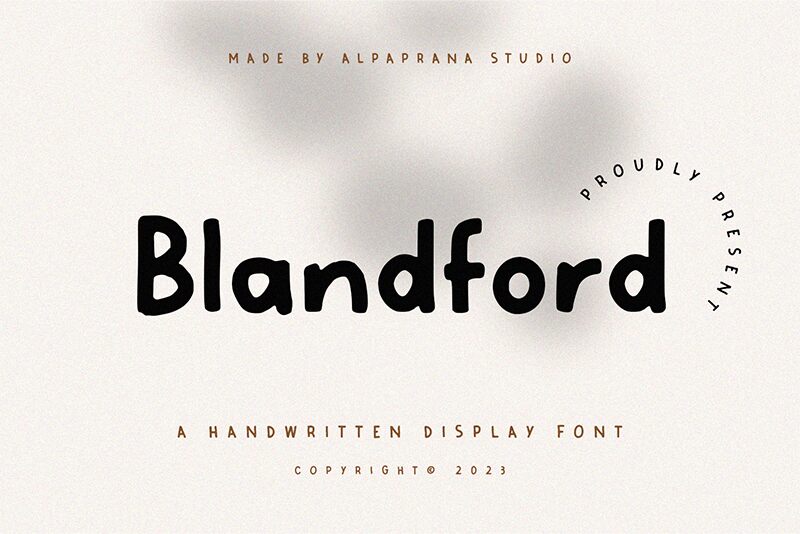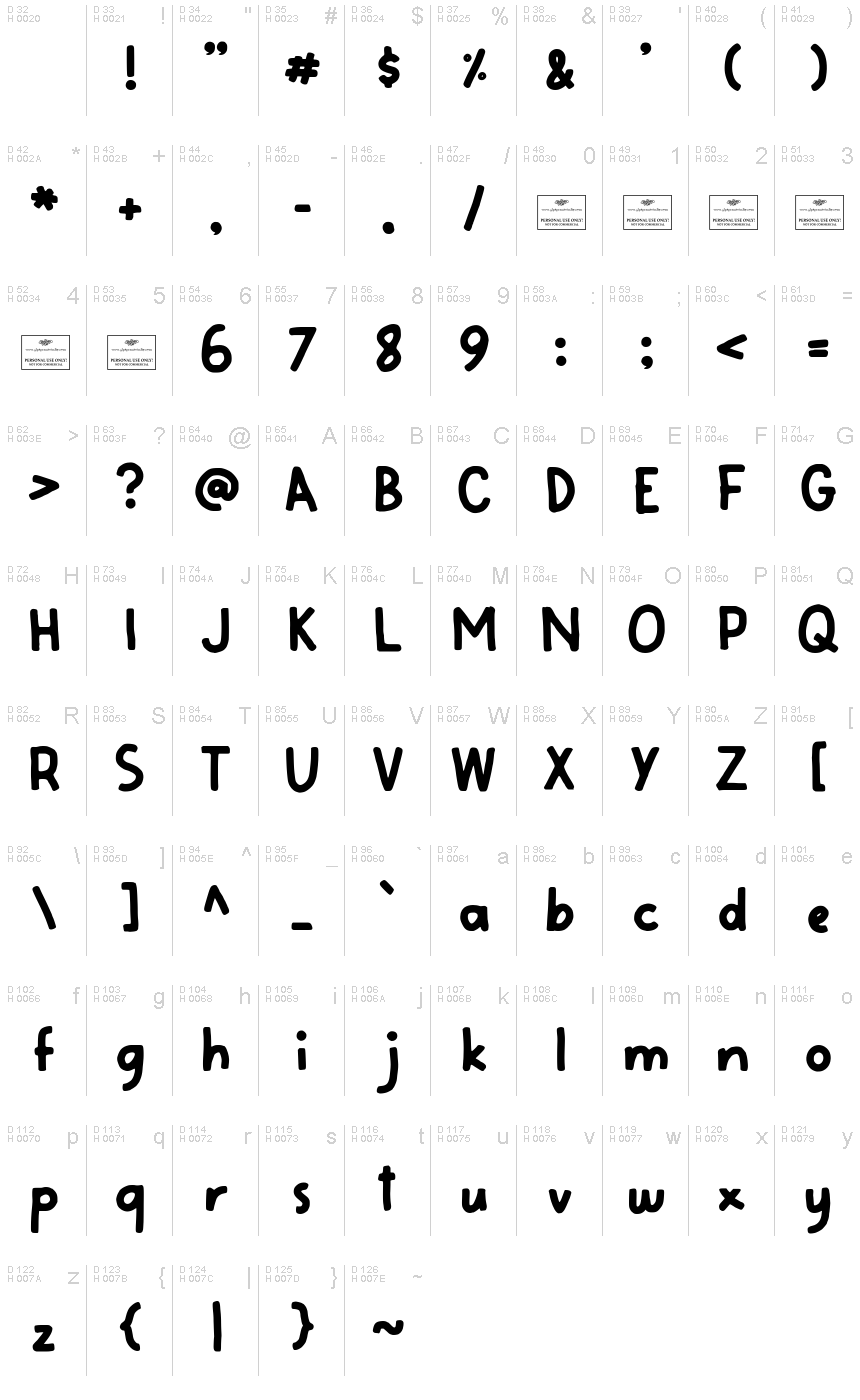
Blandford
Blandford, a captivating handwritten font created by Alpaprana Studio, exudes a delightful blend of elegance and casual charm. Its sweeping, organic strokes and subtle variations lend an authentic, handcrafted feel, evoking a sense of warmth and personality. The font's distinctive character shines through in its playful yet refined appearance, making it a versatile choice for a wide range of design projects.
Blandford's versatility allows it to seamlessly integrate into various design contexts, from branding and packaging to editorial layouts and event materials. Its expressive qualities make it an excellent selection for crafting personalized invitations, greeting cards, and social media content, where the font's ability to convey a genuine, heartfelt tone can captivate audiences. Whether you're designing a rustic wedding suite or curating a modern lifestyle blog, Blandford's adaptability ensures that your visual identity will exude a distinctive and engaging aesthetic.